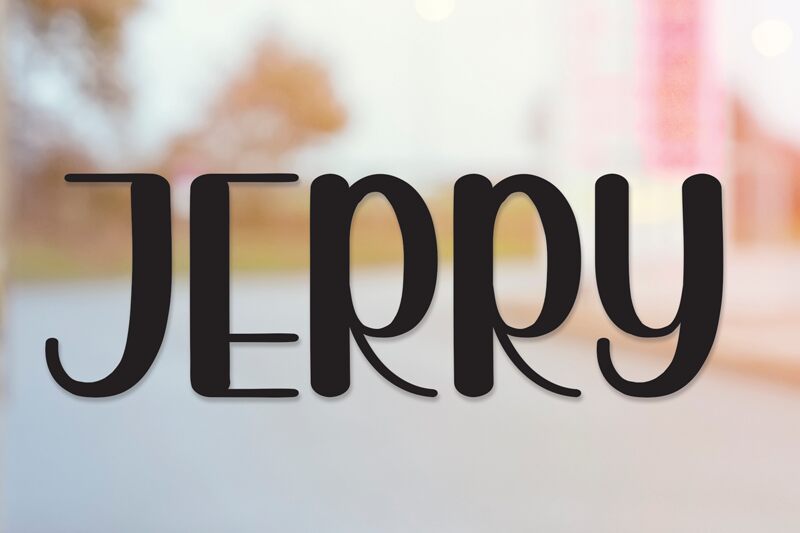
Jerry
Jerry, designed by Andi Moz, embodies a delightful blend of charm and warmth, creating a sweet and friendly atmosphere that captivates at first glance. Its smooth brush strokes lend a playful elegance, making it feel both approachable and light-hearted. The letters dance joyfully across the page, inviting personalized touches in designs.
This font shines in contexts where whimsy meets refined aesthetics—perfect for wedding invitations, greeting cards, or any project that seeks to add a touch of joy. Whether you’re crafting heartfelt messages or vibrant promotional materials, Jerry effortlessly sprinkles fun into your creations while maintaining an air of sophistication.